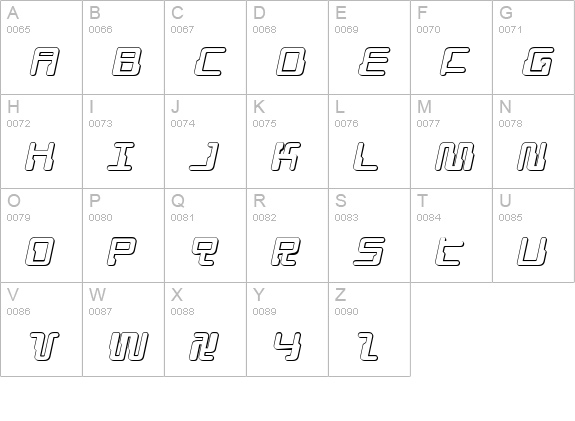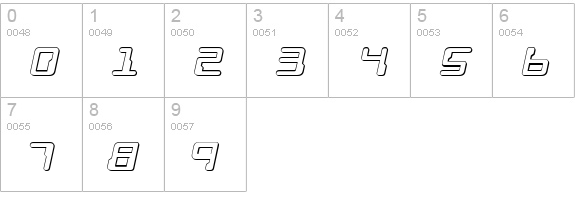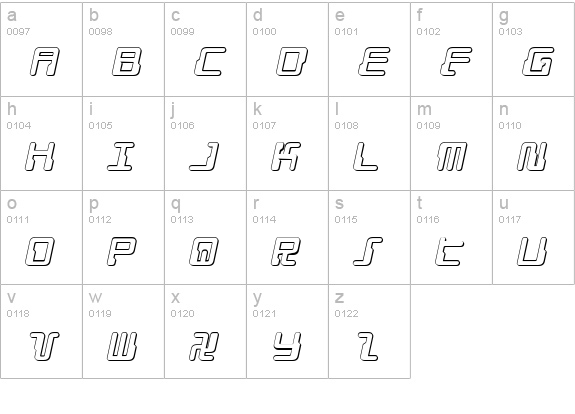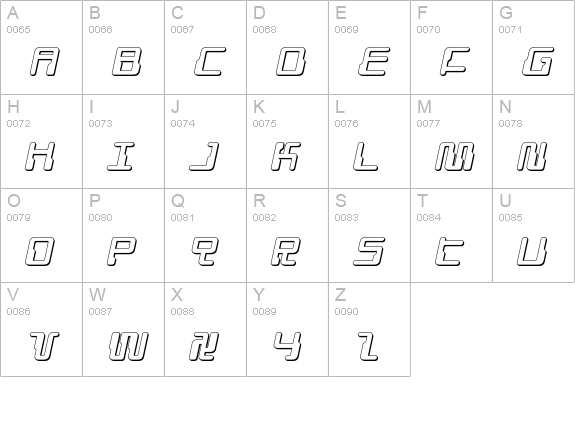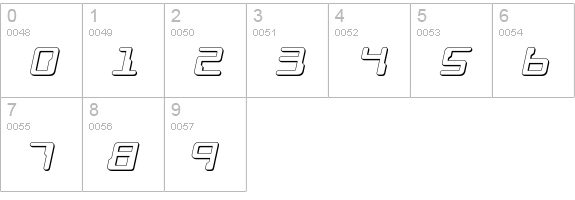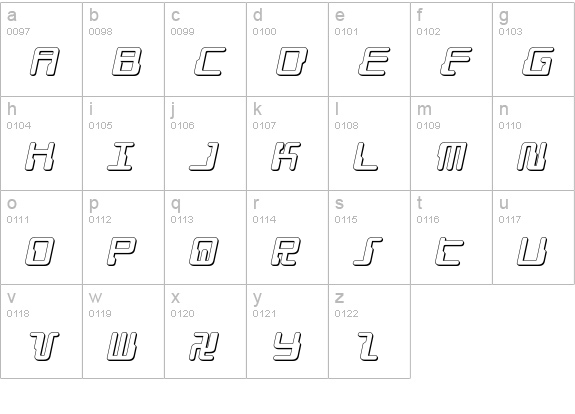
Droid Lover 3D Expanded Italic is a distinctive, extended-width, italic variant in the Droid typeface family \xE2\x80\x94 well suited to design and typography projects.
Droid Lover 3D Expanded Italic font is a striking display typeface that exudes modernity and sophistication. Its three-dimensional design adds depth and dimension to any design project, making it perfect for headlines, logos, and branding materials. The italic style gives it a touch of elegance and flair, making it stand out from the crowd. What makes Droid Lover 3D Expanded Italic font even more appealing is that it is available for free download at FontsMarket.com. This means you can easily access this premium font without any cost, making it a valuable addition to your font collection. Don't miss the opportunity to elevate your designs with the captivating Droid Lover 3D Expanded Italic font – download it for free today!